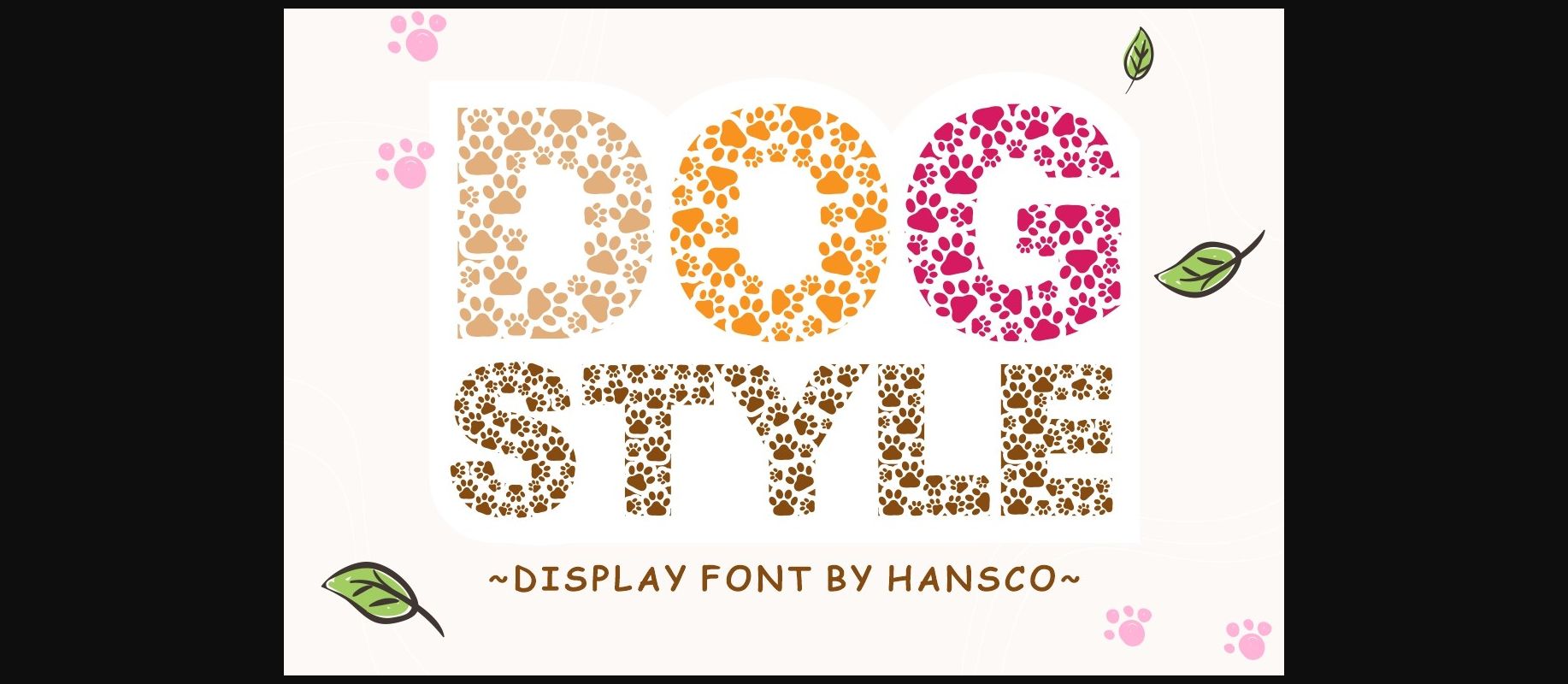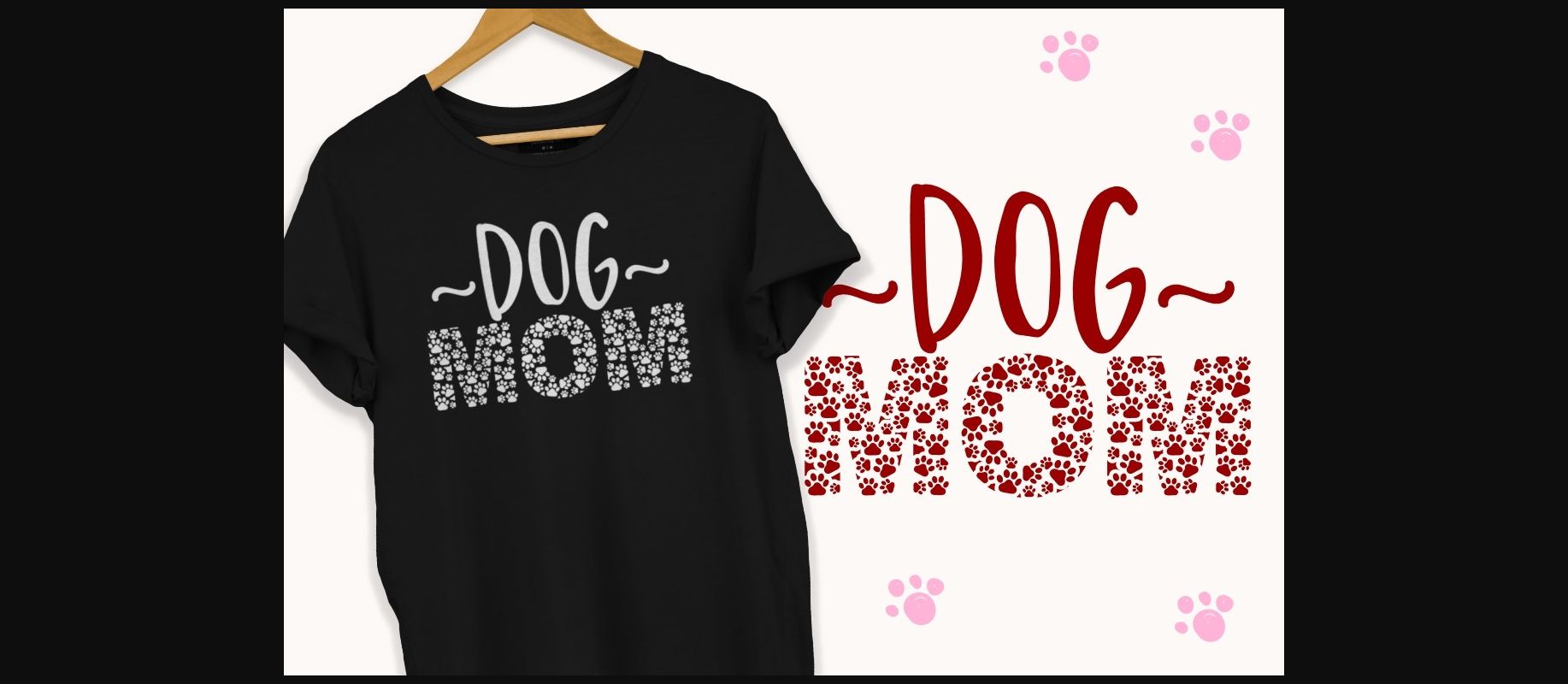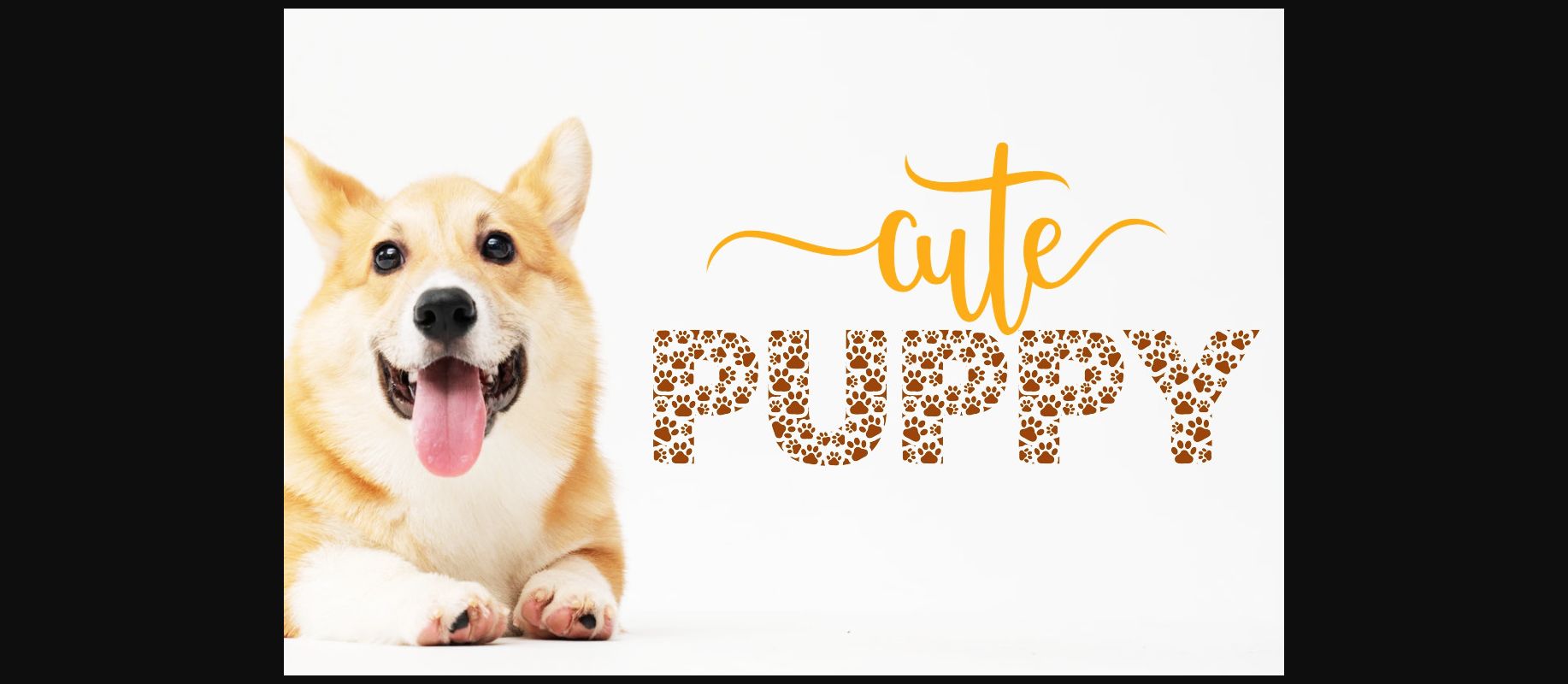
About Dog Style Font
Dog Style is an amazing and cute decorative font. It embodies playfulness and authenticity and is the perfect choice for any children activity or school project.